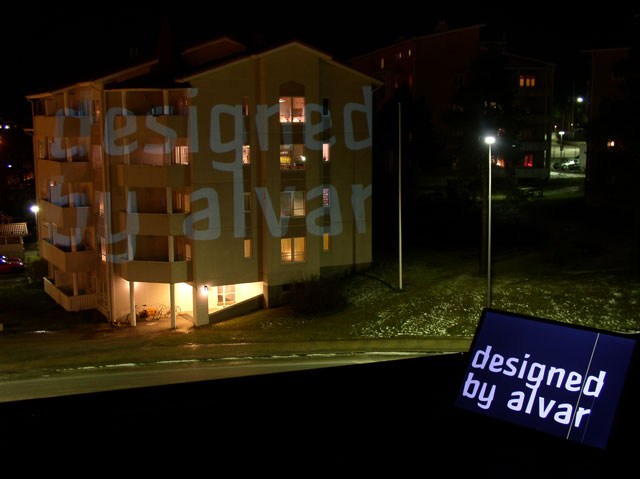
![]() day 1 : day 2 : day 3 : day 4   final result LED-group : Biggest group : Face-the-light group ![]() Ben-Dover May we introduce a brand new type named 'Ben-Dover'. Ben is a member of La Famiglia called sans serif (-una offerta che nessuno pu— dire no.) Their roots have been traced way back in the nineteenth century england where the first member of sans serif family was born. Ben, you're looking at now (call me Pena), is a bastard son of a group of confused art students in Rovaniemi. Ben is a bit heavily built character, but his mass guarantees there's no tougher guy in Rovaniemi. Ben is the biggest! (-I'm gonna whoop your ass!). Yet Ben is round, sympathetic and friendly he just, like most finns, needs some personal space. There is nothing delicate in Ben so let him come out big! Give him some room, fellas!!! You can also view the end result in this PDF. However, all the texts are 'live' typed. This can't be seen on the static photos, therefore here is a little movie (1,6 MB) which gives an impression of the reality. ![]()
![]() 1 comments so far: read comments ![]() ![]() donald beekman -- Thursday, December 18 2003, 01:33 pm hi everyone GOODPOINT: of coarse it had to be LEDs, and only LEDS! i am impressed how elegant the font looks, despite its limitations (dots). really excellent work! i would love to see some Caps too! BENDOVER: sehr sehr cool, i like how the letters bend around the building and change shape when projected! interesting thickness changes within the characters. Very curious how the caps would look too! RENESANS: very nice font indeed, subtle. especially considering the struggle you have had with the concept. it is a beautiful font, i can easily see it used in airport sliding doors. hope you will keep on designing fonts! good luck! donald beekman - [DBXL] http://www.dbxl.nl ![]()